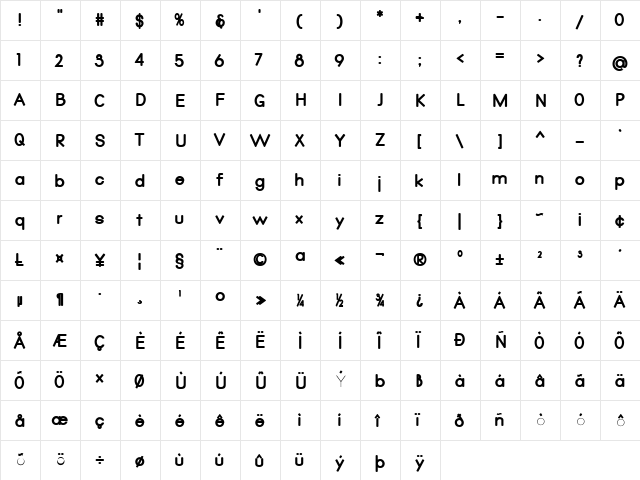
Qualio black Regular
Design Context for Qualio black Typeface
Qualio black takes a measured approach to typography — its balanced proportions and neutral character make it a reliable workhorse for both digital and print work.